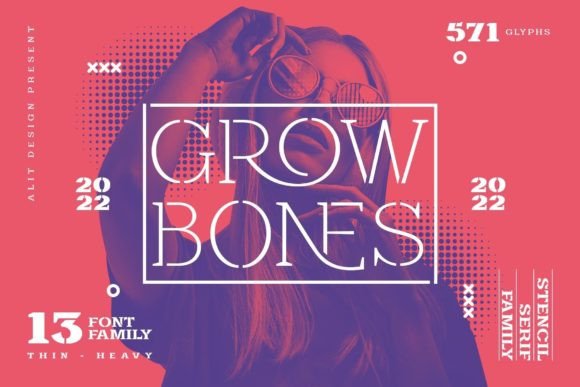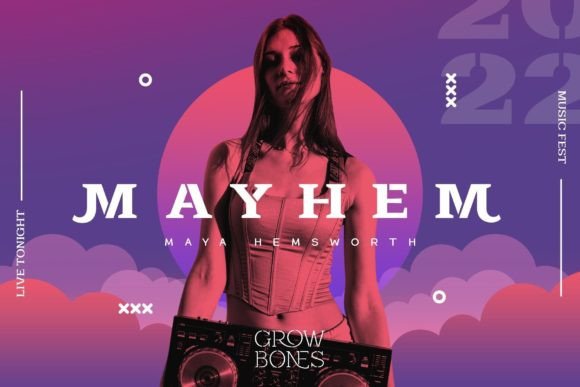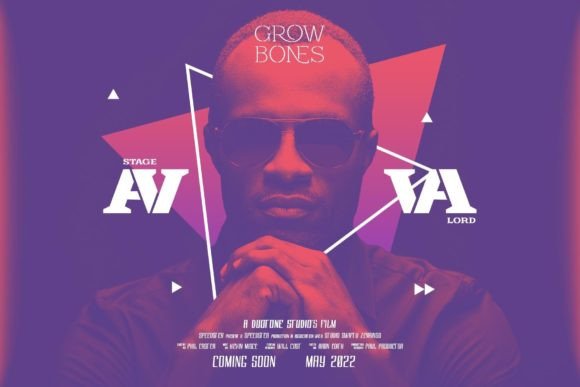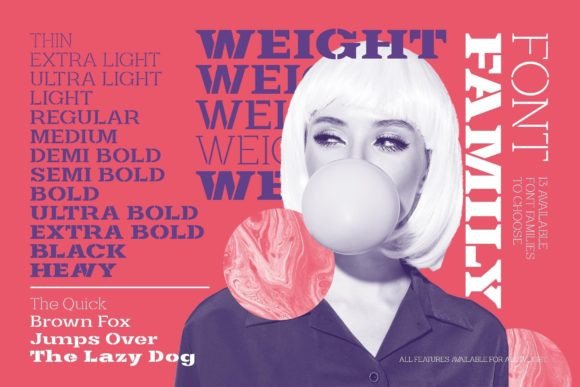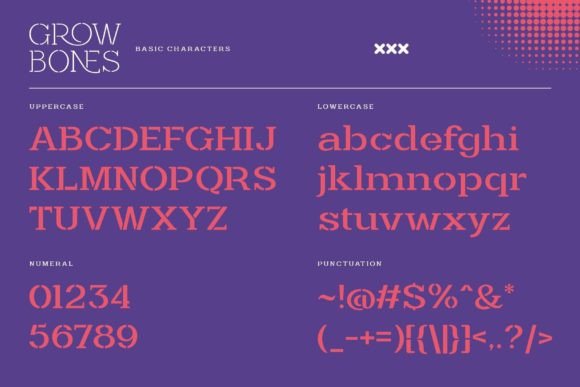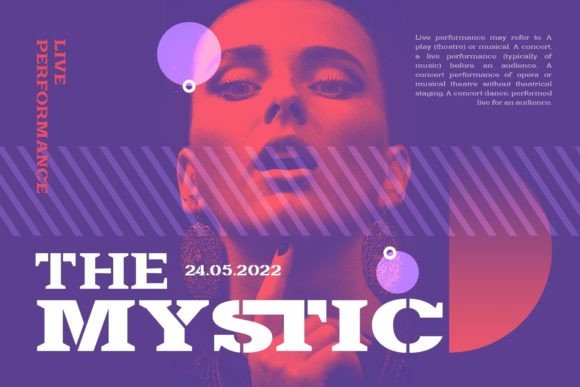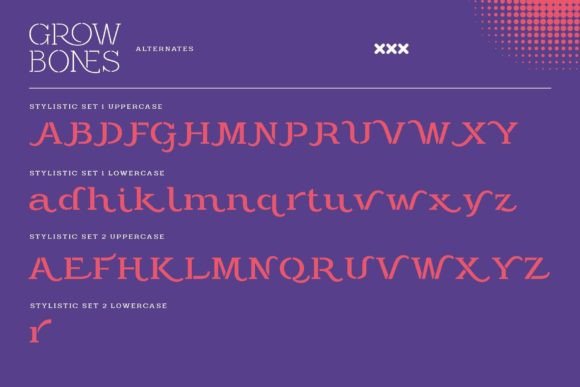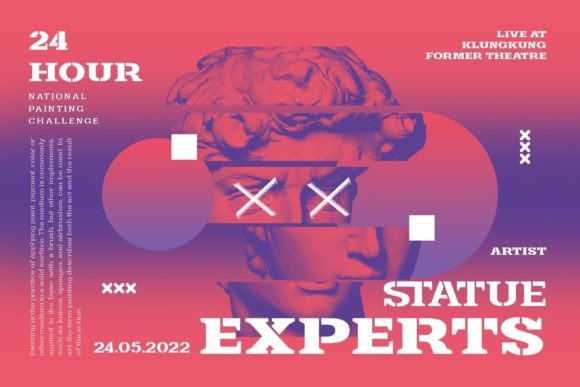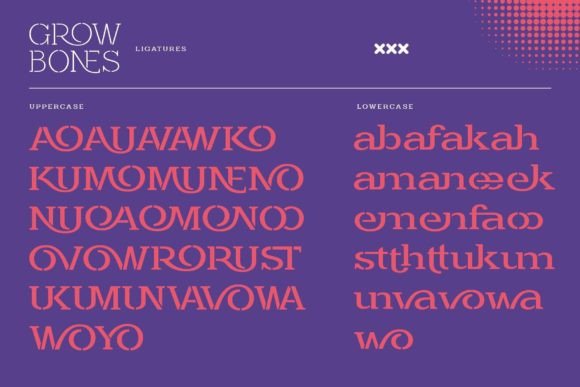
Grow Bones Font
Grow Bones font is designed with a serif font concept that has a sporty display stencil style. Irregular dynamic shapes but impressively regular and unique make the font “Grow Bones” different and steal attention.
Serif typefaces such as “Grow Bones” are very easy to apply to any design, especially those with a sporty, modern and strong, besides that this font is very easy to use both in design and non-design programs because everything changes, and glyphs are supported by Unicode (PUA).